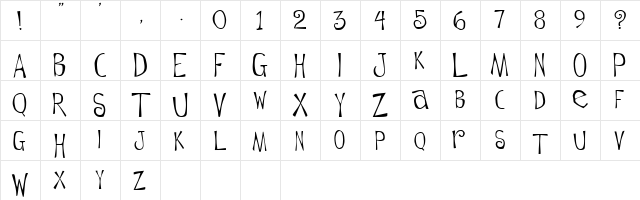
Flowerchild Plain
Design Context for Flowerchild Typeface
Flowerchild trades formality for fun, with bouncy, characterful letterforms that bring warmth and energy to any project.
Great for children's books, toy packaging, family event branding, and casual consumer-facing design.
Font Pairing: Pairs well with a rounded or humanist sans for body copy, maintaining the friendly tone without relying on Flowerchild to carry extended reading.
Pro Tip: Avoid using Flowerchild for long passages of text — it works best for headlines, labels, and short calls to action.